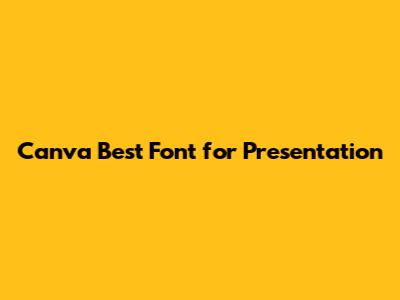
Top Canva Fonts: Elevate Your Presentation Design
Choosing the best Canva font for your presentation can significantly impact how your message is received. Fonts are more than just text; they convey emotion, professionalism, and readability. In this article, we'll dive into some of the top Canva fonts that can elevate your presentation design, making it both engaging and effective.
Understanding the Importance of Font Choice
Before we jump into specific fonts, let's understand why font choice matters so much. The right font can capture your audience's attention, maintain their interest, and ensure they grasp your key points effortlessly. A poorly chosen font, on the other hand, can lead to confusion, eye strain, and a general lack of engagement. Think of fonts as the voice of your presentation – you want it to be clear, confident, and aligned with your message.
Readability is paramount. A font might look stylish, but if it's hard to read, it's not suitable for a presentation. Your audience needs to be able to quickly and easily digest the information on your slides, especially in a large room or on a screen. Consider the size of the font and the contrast between the text and background. Also, be mindful of the font's spacing and kerning, which affect how individual letters and words appear together.
Furthermore, the font should align with your brand and the overall tone of your presentation. A formal presentation might call for a classic serif font like Times New Roman or Georgia, while a creative presentation might benefit from a modern sans-serif font like Helvetica or Arial. Consistency is key – stick to a limited number of fonts (usually two or three) throughout your presentation to maintain a cohesive and professional look. Using too many different fonts can make your presentation appear cluttered and disorganized.
Finally, consider the psychological impact of fonts. Different fonts evoke different emotions and associations. Serif fonts often convey tradition, authority, and reliability, while sans-serif fonts tend to project modernity, simplicity, and clarity. Script fonts can add a touch of elegance and personality, but they should be used sparingly and only for headings or accents. By carefully selecting fonts that align with your message and brand, you can create a presentation that not only looks great but also resonates with your audience on a deeper level.
Top Canva Fonts for Presentations
Canva offers a wide variety of fonts, each with its unique characteristics. Here are some of the top Canva fonts that are perfect for presentations, categorized for different styles and purposes.
Sans-Serif Fonts
Sans-serif fonts are generally considered modern and clean, making them ideal for presentations that aim for clarity and simplicity. These fonts lack the small decorative strokes (serifs) found in traditional fonts, giving them a more streamlined appearance.
• Montserrat: This is a versatile and widely used sans-serif font that works well for both headings and body text. Its clean lines and balanced proportions make it highly readable and suitable for a variety of presentation topics.
• Open Sans: Another excellent choice for body text, Open Sans is known for its legibility and neutral appearance. It's a great option if you want a font that doesn't distract from your content.
• Lato: Lato is a modern sans-serif font with a slightly rounded design, giving it a friendly and approachable feel. It's a good choice for presentations that aim to be both professional and inviting.
• Raleway: With its elegant and slightly condensed design, Raleway is a great option for headings and subheadings. It adds a touch of sophistication to your presentation without sacrificing readability.
• Poppins: Poppins is a geometric sans-serif font that is highly versatile and works well in a variety of design contexts. Its clean and modern look makes it a great choice for presentations targeting a younger audience.
Serif Fonts
Serif fonts are often associated with tradition, authority, and elegance. They feature small decorative strokes at the ends of the letters, which can enhance readability in print and give a more formal appearance. While less commonly used in presentations than sans-serif fonts, they can be effective in certain contexts.
• Playfair Display: This is a high-contrast serif font that is perfect for headings and titles. Its elegant and refined design adds a touch of sophistication to your presentation.
• Merriweather: Designed specifically for on-screen reading, Merriweather is a highly legible serif font that works well for body text. Its slightly condensed letterforms make it efficient in terms of space.
• Lora: Lora is a well-balanced serif font with a contemporary feel. Its roots are in calligraphy, giving it a unique and expressive character.
• Arvo: This is a slab-serif font, characterized by its thick, block-like serifs. Arvo is a good choice for headings and subheadings, adding a touch of boldness and visual interest to your presentation.
• Bitter: Bitter is a contemporary serif typeface designed for readability on screen. The strong serifs give it a sturdy appearance, making it suitable for professional presentations.
Script and Display Fonts
Script and display fonts are more decorative and are best used sparingly for headings, titles, or accents. These fonts can add personality and flair to your presentation, but they should be used with caution to avoid overwhelming the audience.
• Pacifico: This is a fun and friendly script font that adds a touch of personality to your presentation. Use it for headings or titles to create a more relaxed and approachable feel.
• Oleo Script: Oleo Script is a bold and playful script font that is perfect for adding a touch of whimsy to your presentation. It's best used for short headings or quotes.
• Lobster: Lobster is a condensed and highly stylized script font that is perfect for creating eye-catching titles and headings. However, it should be used sparingly as it can be difficult to read in large blocks of text.
• Bangers: Bangers is a bold and impactful display font that is perfect for creating attention-grabbing headlines. Its comic-book-inspired design adds a touch of fun and energy to your presentation.
• Luckiest Guy: As the name implies, Luckiest Guy is a cheerful and playful display font that is perfect for adding a touch of fun to your presentation. Use it for short headings or titles to create a lighthearted and engaging atmosphere.
How to Choose the Right Font Combination
Choosing the right font combination is crucial for creating a visually appealing and cohesive presentation. A good rule of thumb is to pair a sans-serif font with a serif font. For example, you could use Montserrat for your headings and Open Sans for your body text. This combination creates a nice contrast while maintaining readability.
Another approach is to use different weights and styles of the same font family. For example, you could use Lato Bold for your headings and Lato Regular for your body text. This creates a subtle but effective visual hierarchy.
When choosing fonts, consider the overall tone and style of your presentation. A formal presentation might call for a more conservative font combination, while a creative presentation might benefit from a more adventurous pairing. Experiment with different font combinations until you find one that works well for your content and audience.
Tools like FontPair can help you discover great font combinations. Also, Canva provides font pairing suggestions within its design interface, making it easier to create harmonious and visually appealing presentations. Ultimately, the best Canva font combination will depend on the specific needs and goals of your presentation.
Tips for Using Fonts Effectively in Presentations
To ensure your presentation is visually appealing and easy to read, here are some additional tips for using fonts effectively:
• Limit the number of fonts: Stick to a maximum of two or three fonts throughout your presentation. Using too many different fonts can make your presentation look cluttered and unprofessional.
• Use font hierarchy: Use different font sizes and styles to create a visual hierarchy. Make your headings larger and bolder than your body text to guide the audience's eye and emphasize key points.
• Ensure readability: Choose fonts that are easy to read, even from a distance. Avoid using overly decorative or stylized fonts for body text.
• Consider contrast: Make sure there is enough contrast between your text and background. Dark text on a light background is generally the easiest to read.
• Test your fonts: Before your presentation, test your fonts on the screen you'll be using to ensure they look clear and legible.
• Embed your fonts: When sharing your presentation, embed your fonts to ensure they display correctly on other computers. Canva automatically handles font embedding, making it hassle-free.
• Be consistent: Maintain consistency in your font choices throughout your presentation. Use the same font for headings, subheadings, and body text on every slide.
Selecting the best Canva font for your presentation is a critical step in creating a visually engaging and effective presentation. By understanding the different types of fonts, considering the tone and style of your presentation, and following the tips outlined in this article, you can choose fonts that enhance your message and capture your audience's attention. Whether you opt for a classic sans-serif font like Montserrat or a more elegant serif font like Playfair Display, remember to prioritize readability and consistency. With the right font choices, you can transform your presentation from ordinary to outstanding.
So, go ahead and experiment with different fonts in Canva, and find the perfect ones that will elevate your presentation design to the next level. Happy presenting, guys!